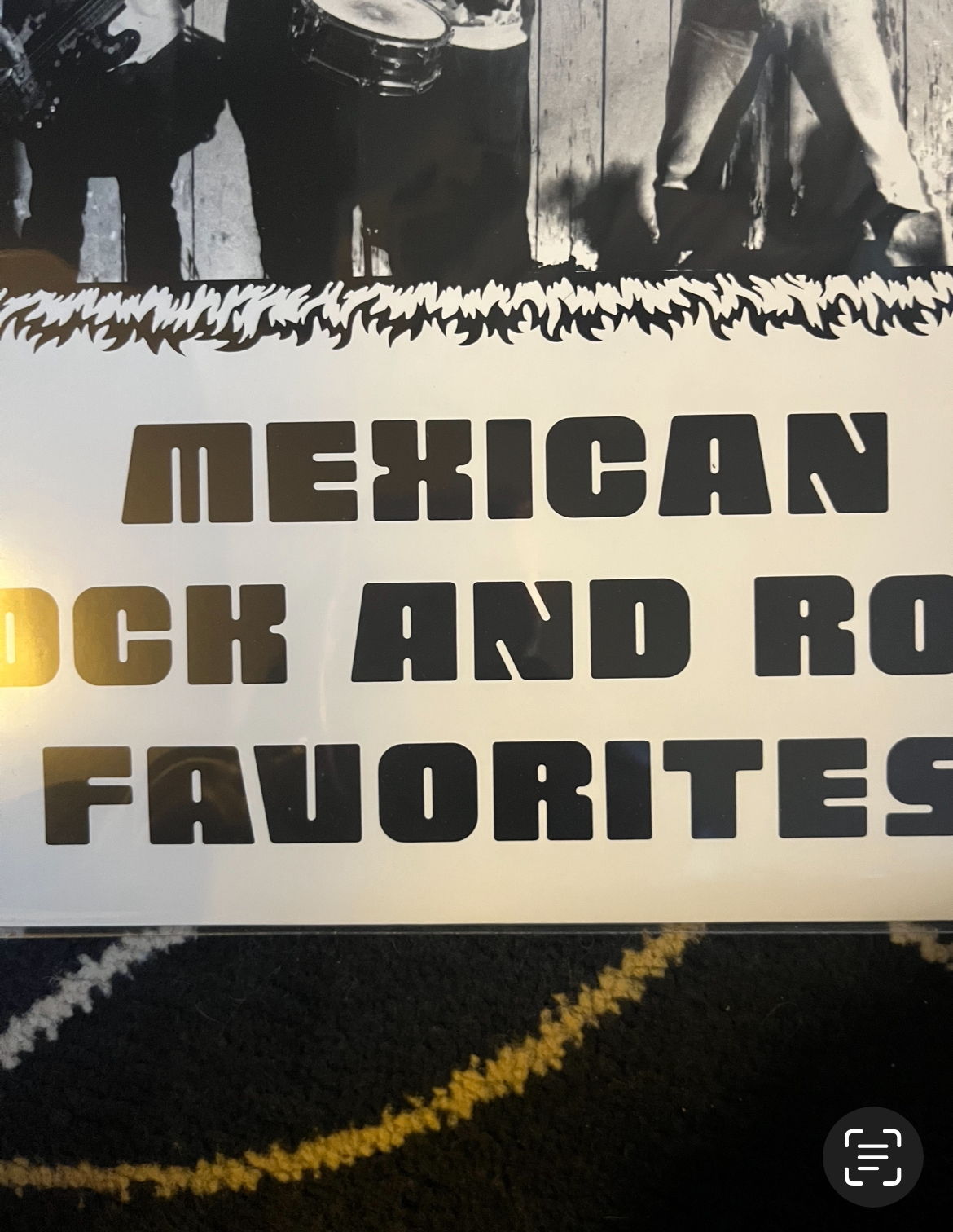
This is from the cover of an album released in 1988 in the US, Blue Demon’s Mexican Rock and Roll Favorites.
I don’t recognize the font. Puzzle is similar, but came later. When you look at the full cover, you’ll find that there are two different forms for M and S and three forms for A. This suggests it’s either a font that offers alternate glyphs, or it’s custom(ized).